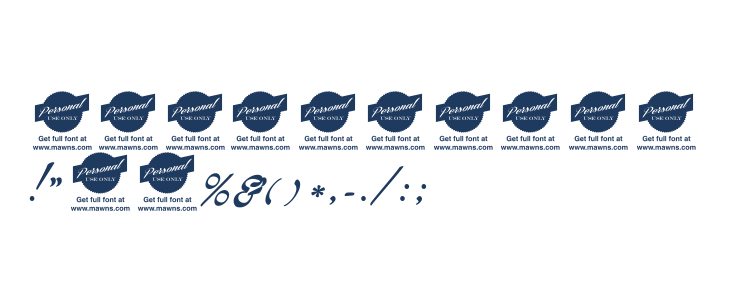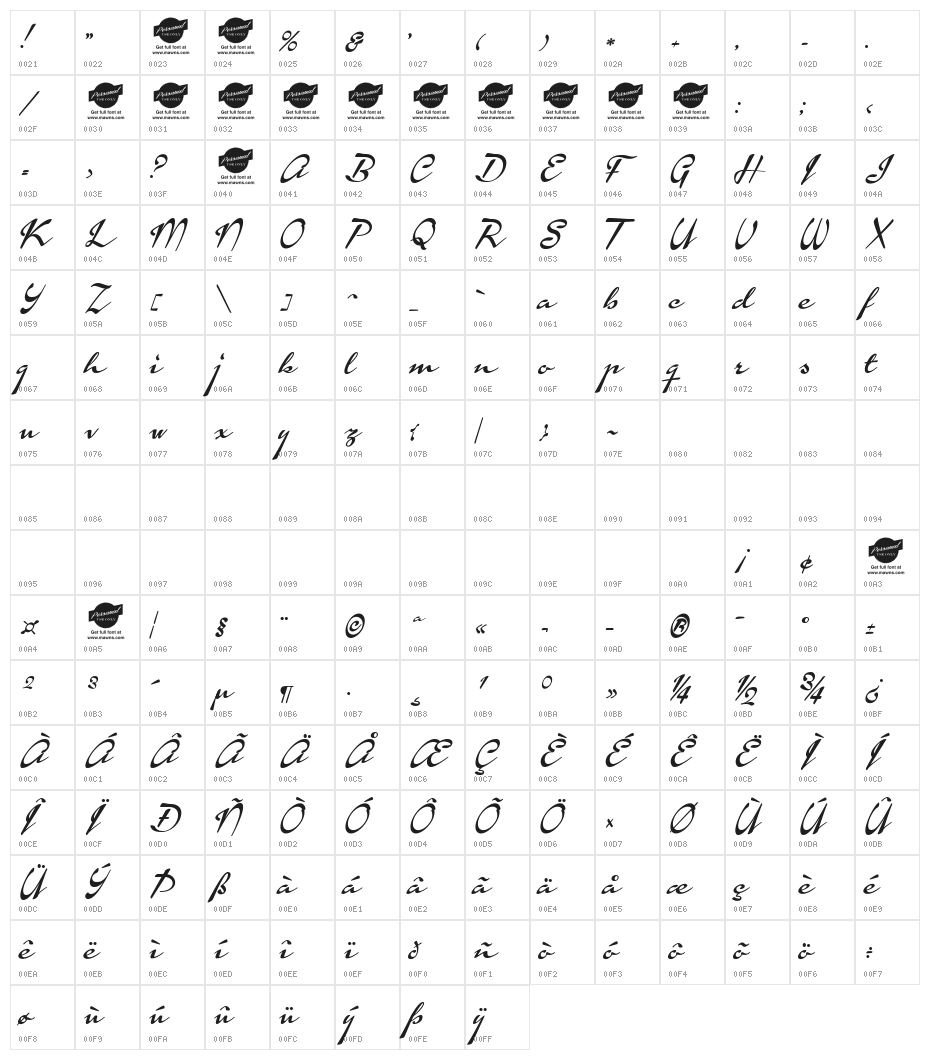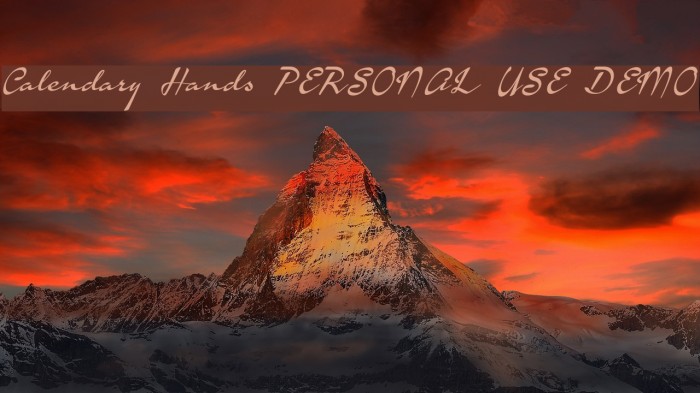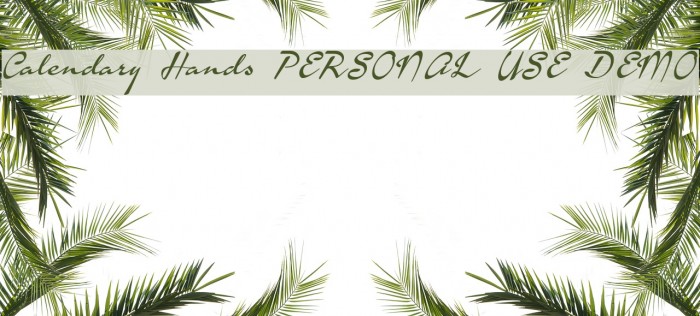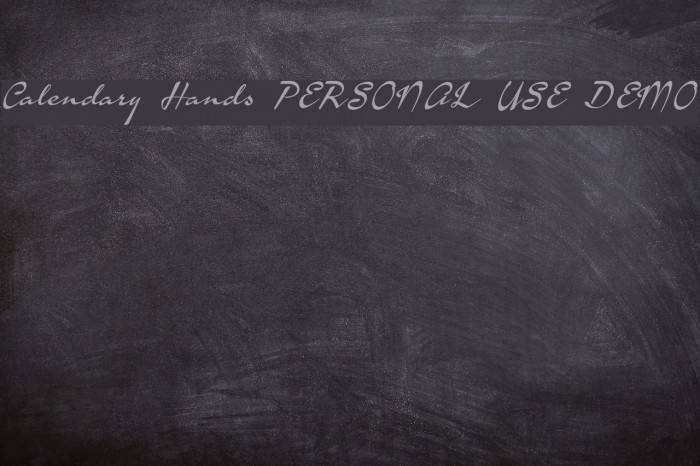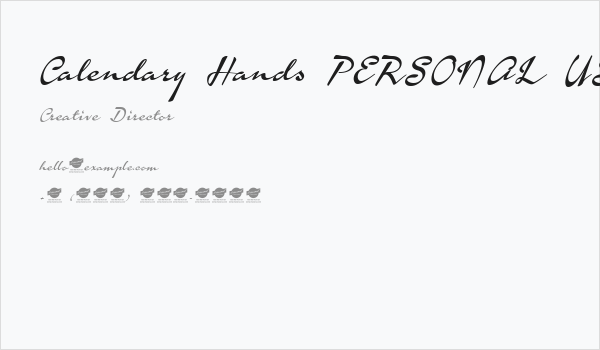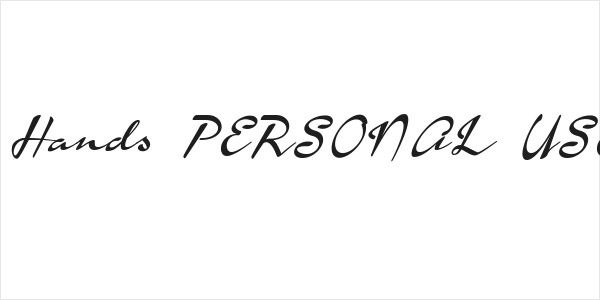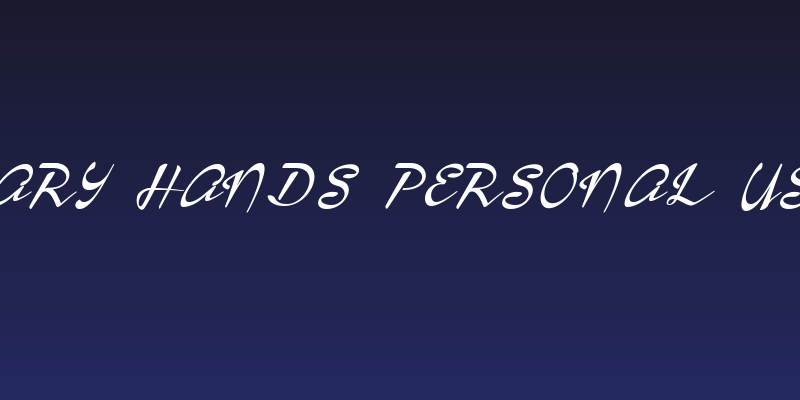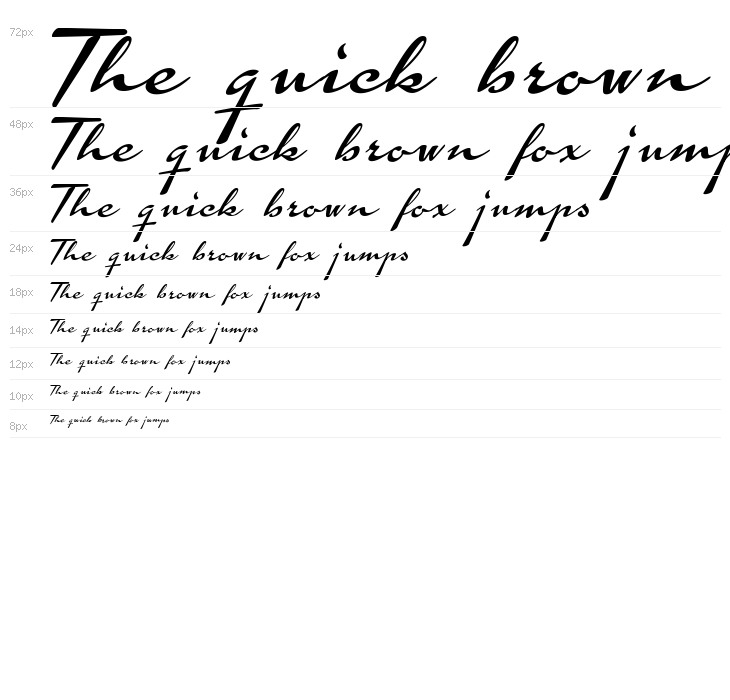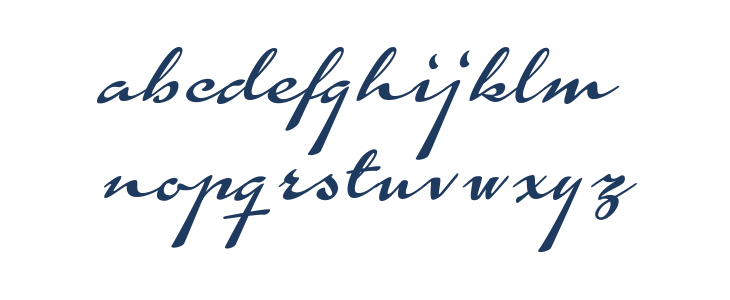
Calendary Hands PERSONAL USE DEMO Font
Calendary Hands PERSONAL USE DEMO Description
This font features an elegant, flowing script style with a handwritten appearance. The uppercase letters are characterized by their sweeping curves and graceful lines, while the lowercase letters maintain a consistent fluidity that enhances readability. The numerals and special characters are designed to complement the overall aesthetic, adding a touch of sophistication. The strokes vary in thickness, providing a dynamic contrast that adds to the font's visual appeal. This font is perfect for projects that require a personal, artistic touch, such as invitations, greeting cards, and branding materials.